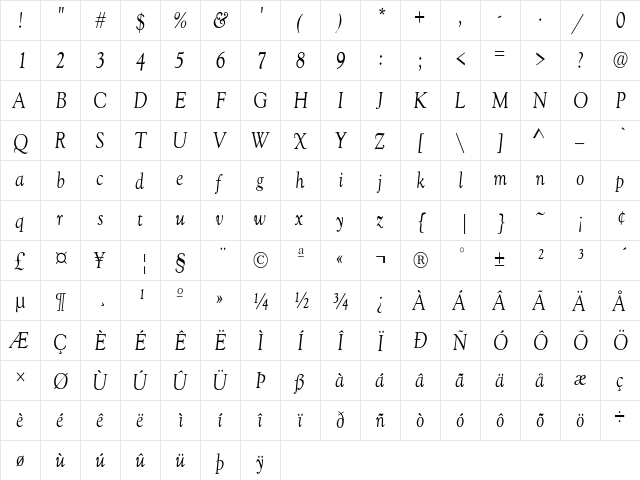
GoudyCnd-Normal-Italic Regular
Design Context for GoudyCnd-Normal-Italic Typeface
GoudyCnd-Normal-Italic is a composed and adaptable typeface that performs quietly and consistently across a wide range of design contexts. Its italic angle brings a sense of urgency and motion to the letterforms.
Pro Tip: Try GoudyCnd-Normal-Italic for annotation and caption copy alongside an upright companion — the contrast in angle creates a dynamic but ordered typographic system.